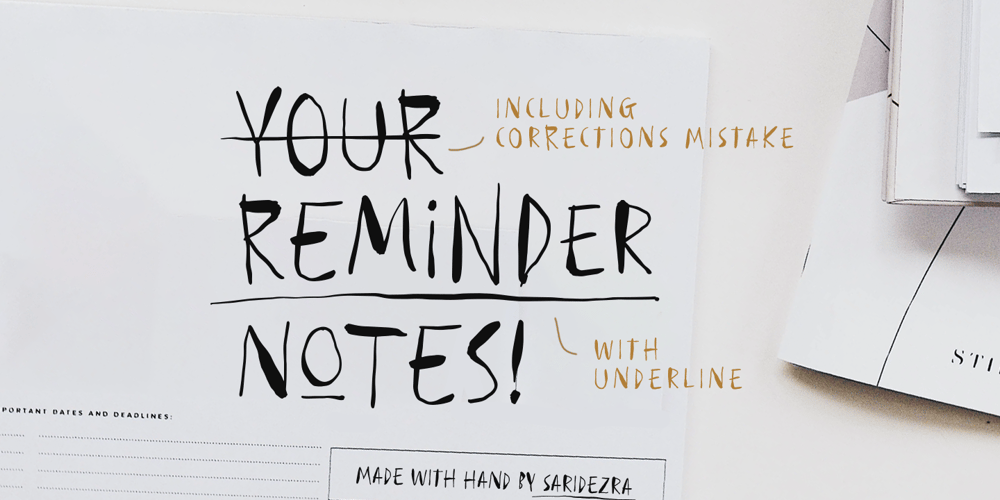
Reminder Notes Font Family was designed by Sarid Ezra and published by Sarid Ezra. Reminder Notes contains 1 styles and family package options. A new handwriting font, Reminder Notes!Reminder Notes is a handwritten font that have special features. This font have ability to add the doodle/ correction line and underline in specific word. You can add the correction line for natural looks or add the underline to highlight some word. This font also including a unique lowercase and uppercase with alternates in some alphabet. You can use this font for quotes, your cover book or playing with words in your instagram post. This font also support multilingual!